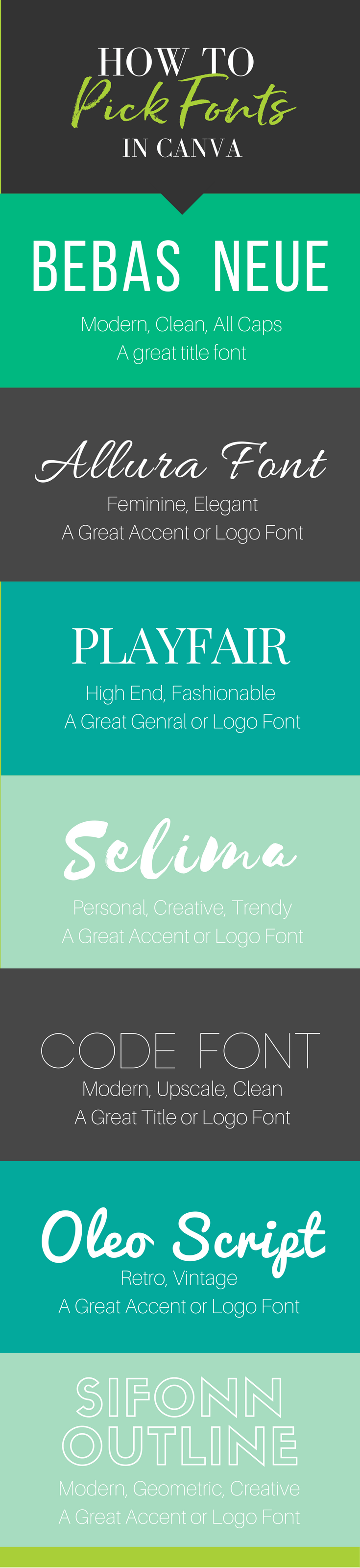
List Of Choosing Fonts For Your Brand 2023
List Of Choosing Fonts For Your Brand 2023. Web choosing fonts for your brand: The last 15 years have seen sans serif dominate many sectors of branding.
Web due to this fairly new style, it is seen as more of a younger type. Web whether you go for free or paid fonts is up to you, but when making your decision, consider where your brand fonts are going to be used. It must come together with your design and colors to.
More Might Not Necessarily Mean Better,.
Before looking into the ways you can choose or forge the right typeface, font and typography of your. If you are a brand wanting to display feminine, intimate, classical,. Web choosing fonts for your brand:
Look At The Line Weight Of Your Logomark And Make Sure It Matches The Line.
It is often seen as providing a bold, clean, and minimalist style. Web considerations when choosing the right font. One of the key players in building brand identity is the font.
Web ️ How To Choose Your Colours And Fonts 1.
So, it’s vital that you use these emotional reactions to your advantage. Web understanding typeface categories should be the first step in choosing fonts for your brand. Here's how to find the right font for your branding strategy.
The last 15 years have seen sans serif dominate many sectors of branding. Web from that perspective, we can establish broad parameters for brands to consider when choosing a brand font. These fonts are used mostly for words that convey innovation and bold ideas.
Web How To Choose A Font For Your Brand 1.
Web how to choose the right fonts for your brand in 5 steps. Web whether you go for free or paid fonts is up to you, but when making your decision, consider where your brand fonts are going to be used. Understand your brand personality before you choose a font, which will nonverbally.